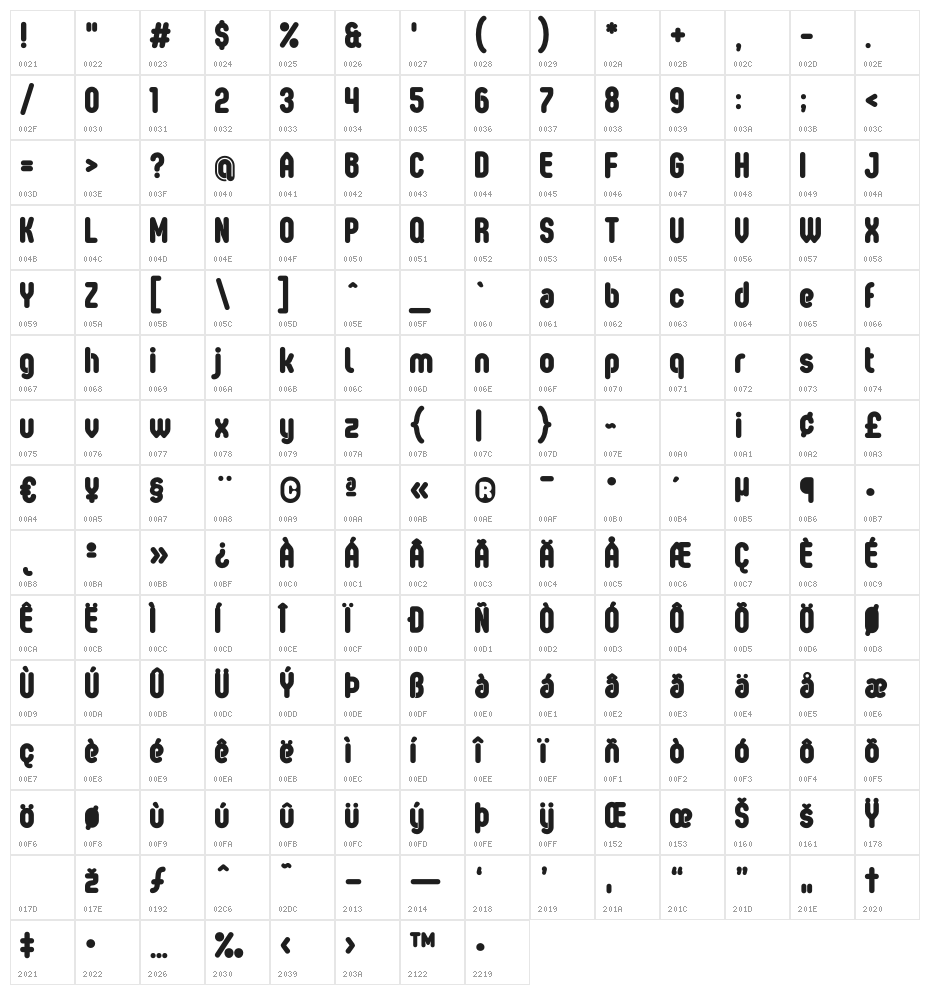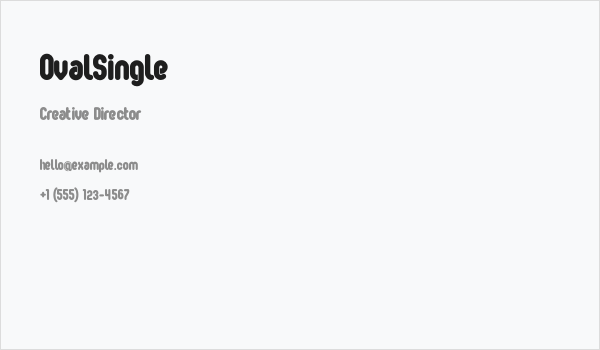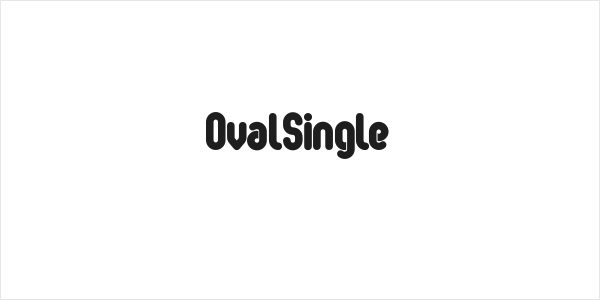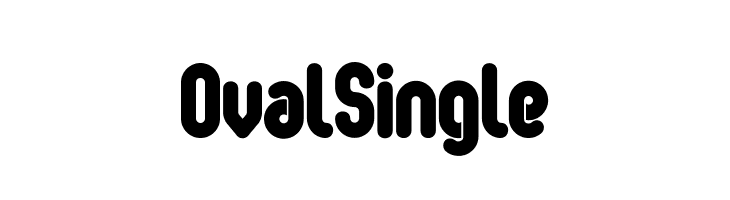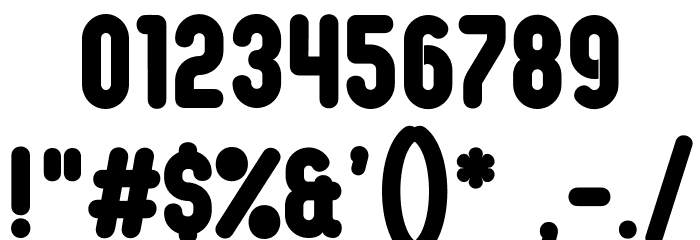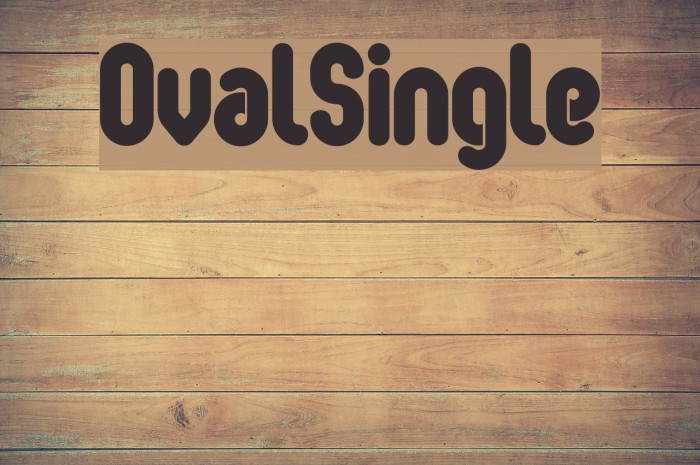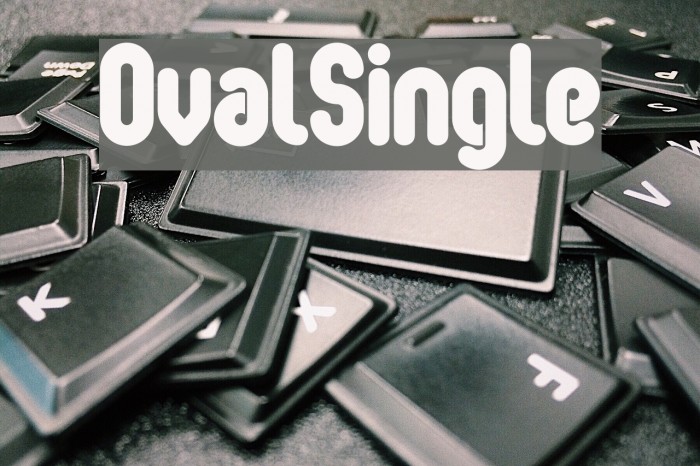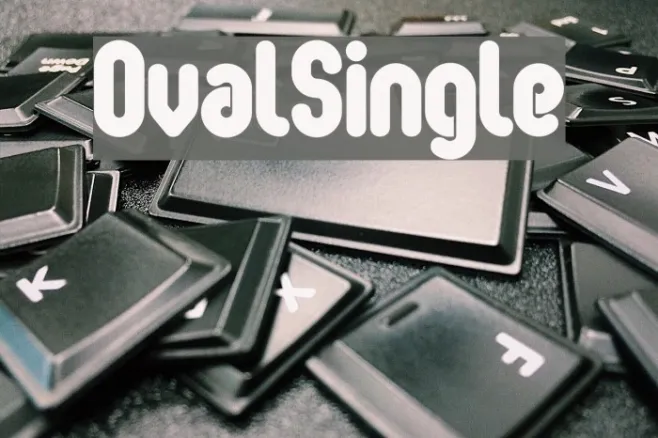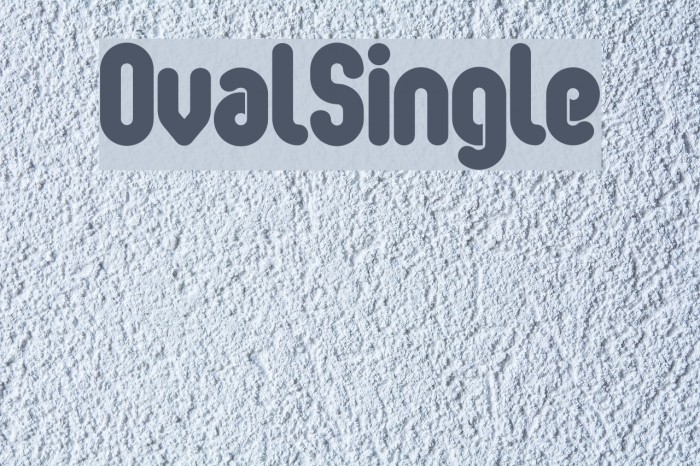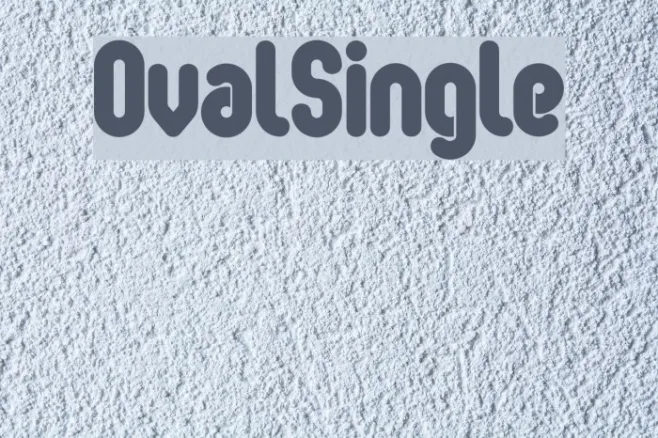
OvalSingle Font
OvalSingle Description
This font features bold, rounded characters with a playful and modern aesthetic. The letters are uniformly thick, creating a strong visual impact. The rounded edges give it a friendly and approachable feel, making it ideal for projects that require a touch of whimsy. The consistent stroke width across all characters ensures readability, while the unique shape of each letter adds character and distinction. The numerals and special characters maintain the same rounded style, ensuring cohesion throughout any text. This font is versatile, suitable for both digital and print media, and can be used to create eye-catching headlines or logos.
| Proposed Projects | Ideal for children's books, playful branding, logos, and eye-catching headlines. |